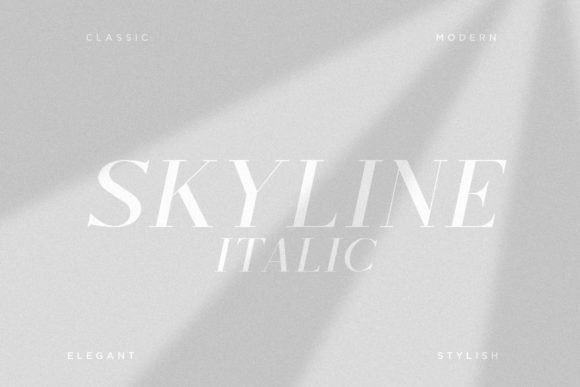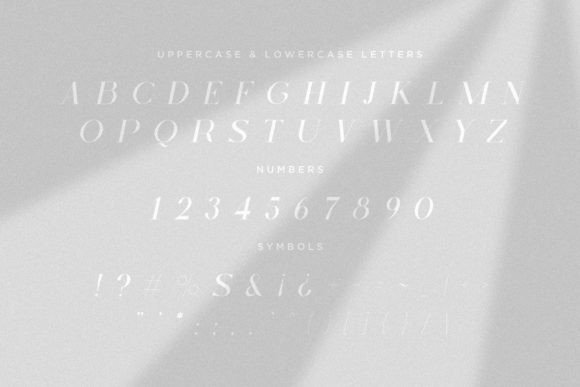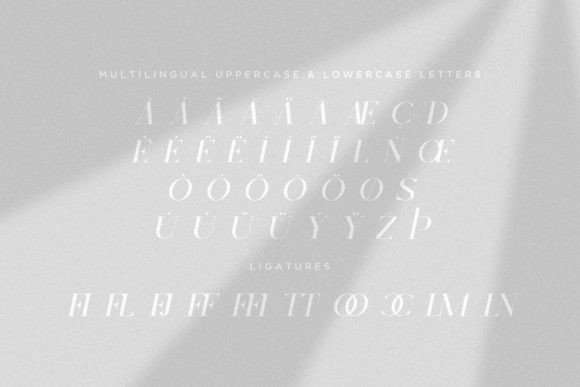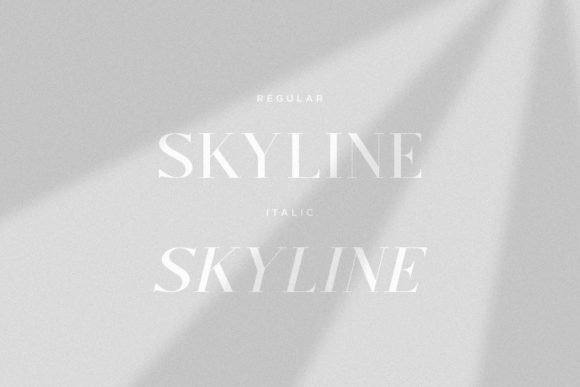
Skyline Italic Font
About the Skyline Italic Font
Discover the charm of Skyline Italic Font. This font is a perfect blend of modern aesthetics and classic appeal. Skyline is a stylish serif font. It looks stunning on wedding invitations, thank you cards, quotes, greeting cards, logos, business cards, and every other design which needs a luxurious touch.